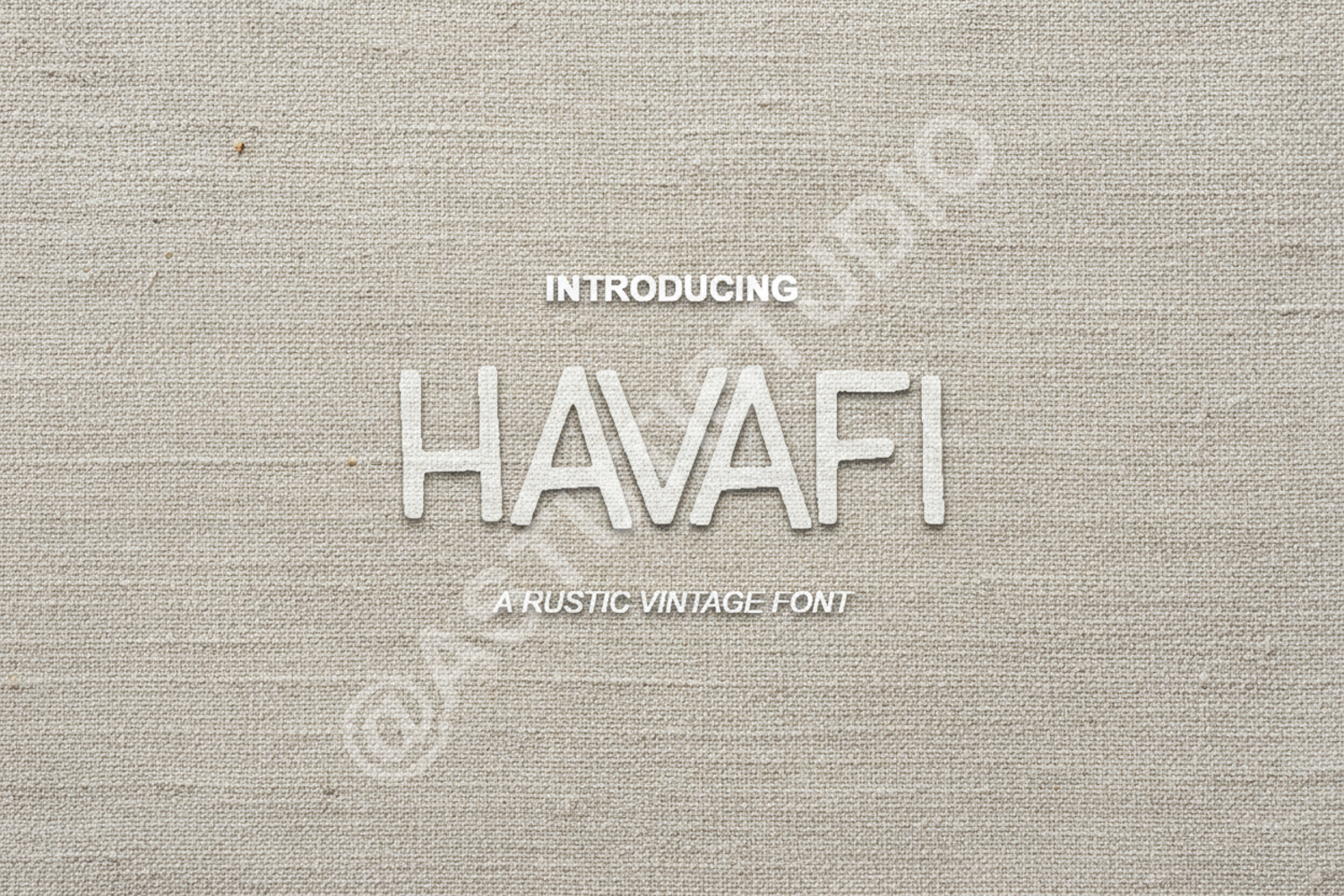
Havafi - Modern Luxury Serif Typeface
Havafi
Havafi is a premium serif typeface meticulously crafted to bring a touch of sophistication and timeless elegance to your creative projects. With its clean lines and high-contrast strokes, Havafi balances classic proportions with a contemporary aesthetic, making it a versatile choice for designers seeking a high-end look.
- Luxury Branding: Perfect for high-end fashion, jewelry, and lifestyle brands.
- Wedding Stationery: Adds a refined touch to invitations, menus, and place cards.
- Editorial Design: Ideal for magazine headers, book covers, and editorial layouts.
- Logo Design: Create distinctive and memorable wordmarks.
- Social Media: Elevate your digital presence with elegant typography.